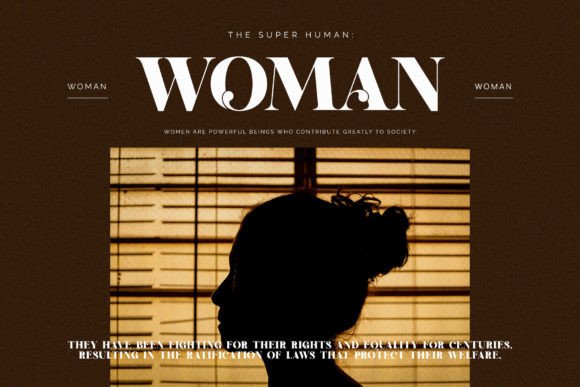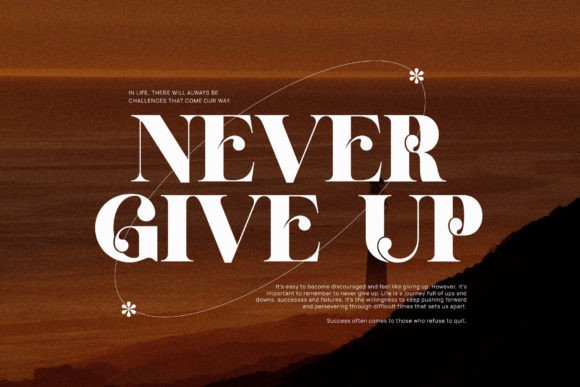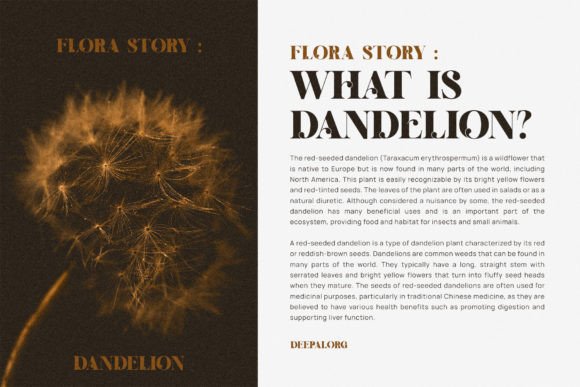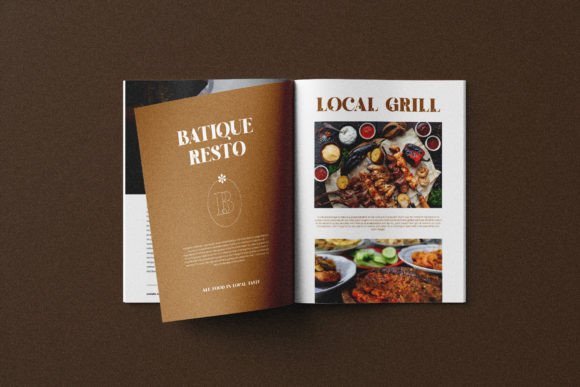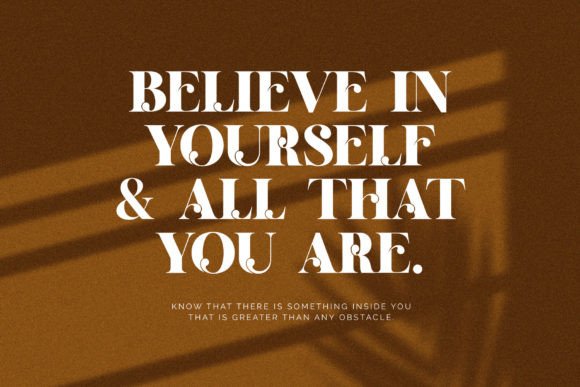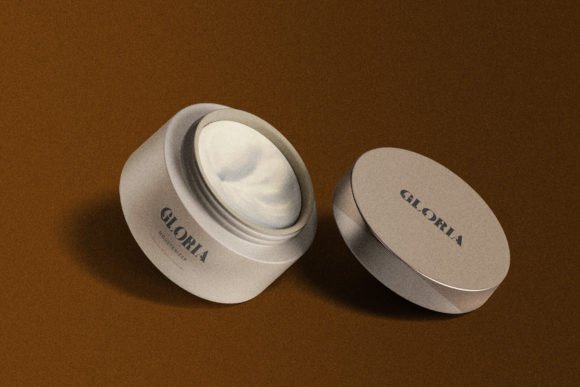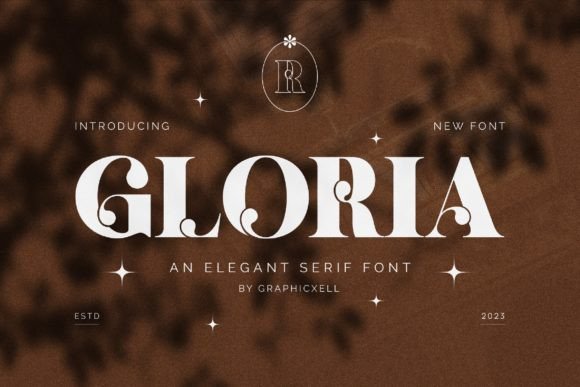
Discover the Elegance of Gloria Font: Elevate Your Designs with Versatility
Are you on the hunt for a font that exudes elegance, sophistication, and versatility? Look no further than the stunning Gloria Font. This beautiful serif font is making waves in the design community, and for good reason. With its bold yet refined style, Gloria is the perfect addition to any design project, from wedding invitations and stationery to social media posts and beyond.
The Characteristics of Gloria Font
Gloria Font is a serif font that boasts an incredibly versatile style, making it suitable for a wide range of design applications. Its elegant and bold characteristics make it stand out from the crowd, while its classic serif features ensure it remains timeless and sophisticated. Whether you’re looking to create a luxurious brand identity or a beautiful piece of stationery, Gloria Font is sure to impress.
Uses for Gloria Font
The possibilities are endless when it comes to using Gloria Font. Here are just a few ideas to get you started:
- Wedding Invitations: Create stunning wedding invitations that set the tone for a beautiful and elegant celebration. Gloria Font’s bold yet refined style makes it perfect for formal wedding stationery.
- Stationery: Add a touch of sophistication to your stationery with Gloria Font. From letterheads to greeting cards, this font is sure to elevate your designs.
- Social Media Posts: Make your social media posts stand out with Gloria Font. Its bold and eye-catching style is sure to grab attention and leave a lasting impression.
- Branding: Use Gloria Font to create a luxurious brand identity that exudes elegance and sophistication. Perfect for high-end brands, this font is sure to make a statement.
Why Designers and Crafters Love Gloria Font
Gloria Font has quickly become a favorite among designers and crafters, and it’s easy to see why. Here are just a few reasons why this font is a must-have:
- Versatility: Gloria Font is incredibly versatile, making it suitable for a wide range of design applications.
- Elegance: This font exudes elegance and sophistication, making it perfect for high-end designs.
- Easy to Read: Despite its bold style, Gloria Font is easy to read, making it perfect for body text and headlines.
- Unique: Gloria Font is a unique and distinctive font that will set your designs apart from the crowd.
Tips for Using Gloria Font
To get the most out of Gloria Font, here are a few tips to keep in mind:
- Pair with Sans-Serif Fonts: Pair Gloria Font with sans-serif fonts for a striking contrast that adds visual interest to your designs.
- Experiment with Colors: Gloria Font looks stunning in a range of colors, from rich jewel tones to metallic shades. Experiment with different colors to find the perfect combination for your design.
- Use for Headlines: Gloria Font is perfect for headlines and titles, where its bold style can really make an impact.
In conclusion, Gloria Font is a stunning serif font that is sure to elevate your designs. With its elegant and bold style, versatility, and ease of use, it’s no wonder that this font is quickly becoming a favorite among designers and crafters. Whether you’re looking to create beautiful wedding invitations, stunning stationery, or eye-catching social media posts, Gloria Font is the perfect choice. So why wait? Fall in love with Gloria Font today and take your designs to the next level!